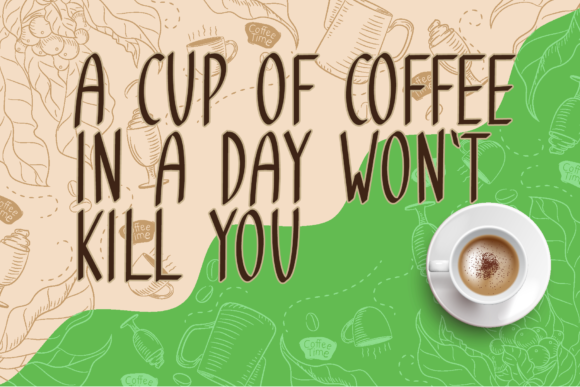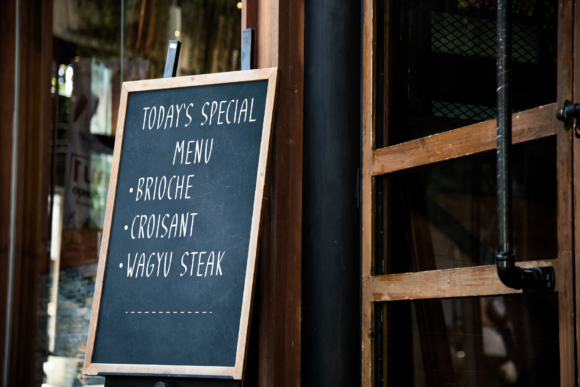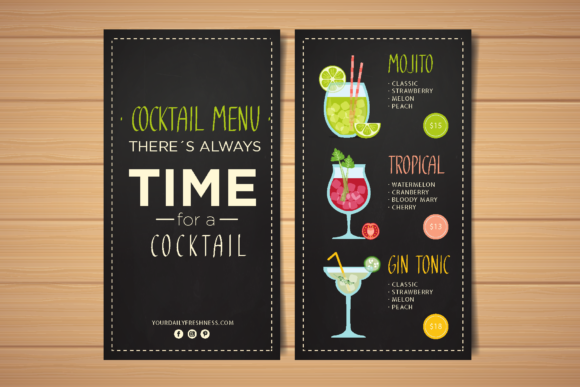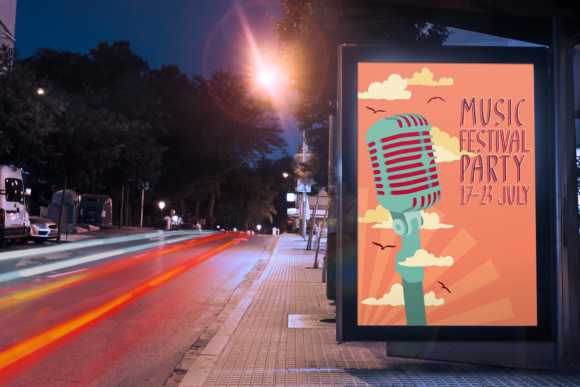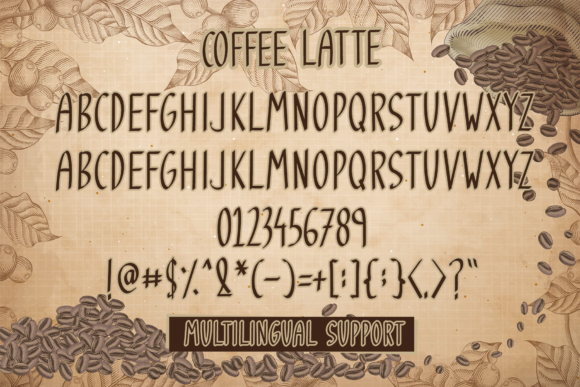
Coffee Latte Font: Elevate Your Designs with Elegance and Sophistication
Are you tired of using the same old fonts in your designs? Do you want to add a touch of elegance and sophistication to your creative projects? Look no further than the Coffee Latte Font, a stunning sans serif font that is sure to make your designs stand out. In this article, we’ll take a closer look at the Coffee Latte Font, its features, and how you can use it to take your designs to the next level.
What is Coffee Latte Font?
Coffee Latte Font is a modern sans serif font that exudes elegance and cleanliness. Its simple yet sophisticated design makes it perfect for a wide range of creative projects, from branding and advertising to packaging and digital design. The font’s sleek lines and curves create a sense of harmony and balance, making it easy to read and visually appealing.
Key Features of Coffee Latte Font
- Elegant and Clean Design: The Coffee Latte Font features a clean and elegant design that is perfect for creating sophisticated and modern designs.
- Sans Serif: The font’s sans serif design makes it easy to read and perfect for use in digital and print designs.
- Highly Versatile: The Coffee Latte Font is highly versatile and can be used in a wide range of creative projects, from branding and advertising to packaging and digital design.
- Easy to Read: The font’s simple and clean design makes it easy to read, even at small sizes.
How to Use Coffee Latte Font in Your Designs
The Coffee Latte Font is a highly versatile font that can be used in a wide range of creative projects. Here are a few ideas to get you started:
- Branding and Advertising: Use the Coffee Latte Font to create elegant and sophisticated branding and advertising materials, such as logos, business cards, and billboards.
- Packaging Design: The font’s clean and modern design makes it perfect for use in packaging design, from labels and tags to product packaging and point-of-purchase displays.
- Digital Design: The Coffee Latte Font is perfect for use in digital design, from website headers and footers to social media graphics and email marketing campaigns.
- Crafting and DIY Projects: The font’s elegant and sophisticated design makes it perfect for use in crafting and DIY projects, from handmade cards and invitations to scrapbooking and journaling.
Tips for Getting the Most Out of Coffee Latte Font
Here are a few tips for getting the most out of the Coffee Latte Font:
- Experiment with Different Sizes: The Coffee Latte Font is highly legible at a wide range of sizes, so don’t be afraid to experiment with different sizes to find the one that works best for your design.
- Pair with Other Fonts: The Coffee Latte Font pairs well with a wide range of other fonts, so don’t be afraid to experiment with different font combinations to find the one that works best for your design.
- Use in Combination with Images: The Coffee Latte Font looks great in combination with images, so consider using it in combination with photographs or illustrations to add visual interest to your design.
In conclusion, the Coffee Latte Font is a stunning sans serif font that is sure to elevate your designs and make them stand out. Its elegant and clean design, highly legible and versatile, make it perfect for use in a wide range of creative projects. Whether you’re a designer, craft, or DIY enthusiast, the Coffee Latte Font is a great addition to your font collection.